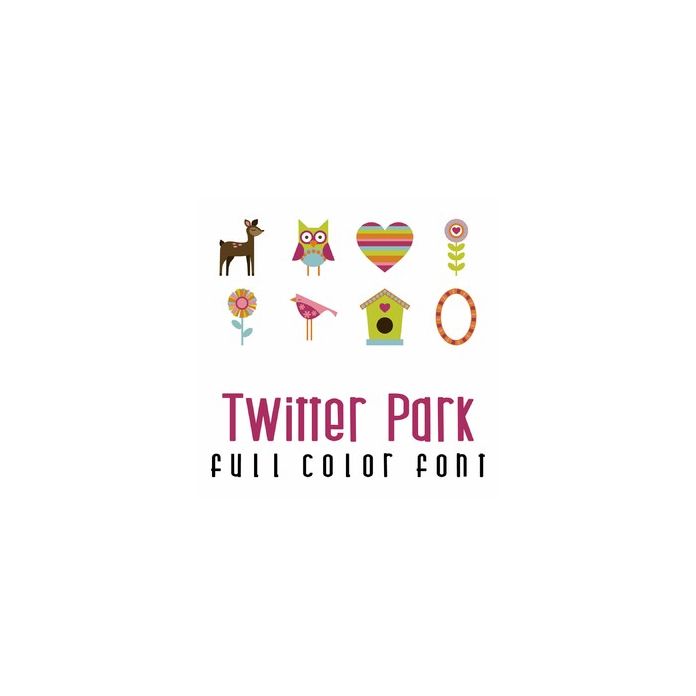
This fun full-color doodlebat font features 26 lovebirds, flowers, frames, deer and Valentine-themed imagery. perfect for cards, crafts, gifts, scrapbook pages, planner stickers, and more!